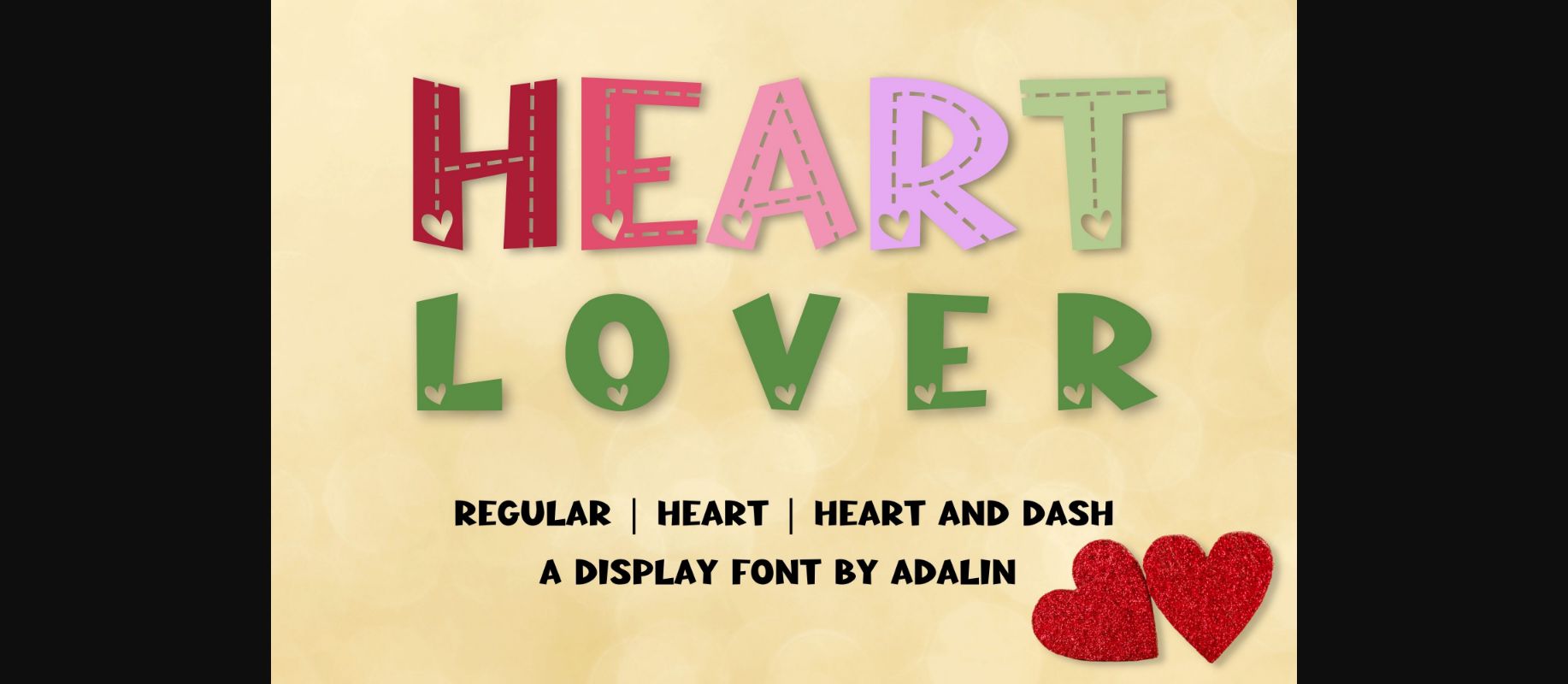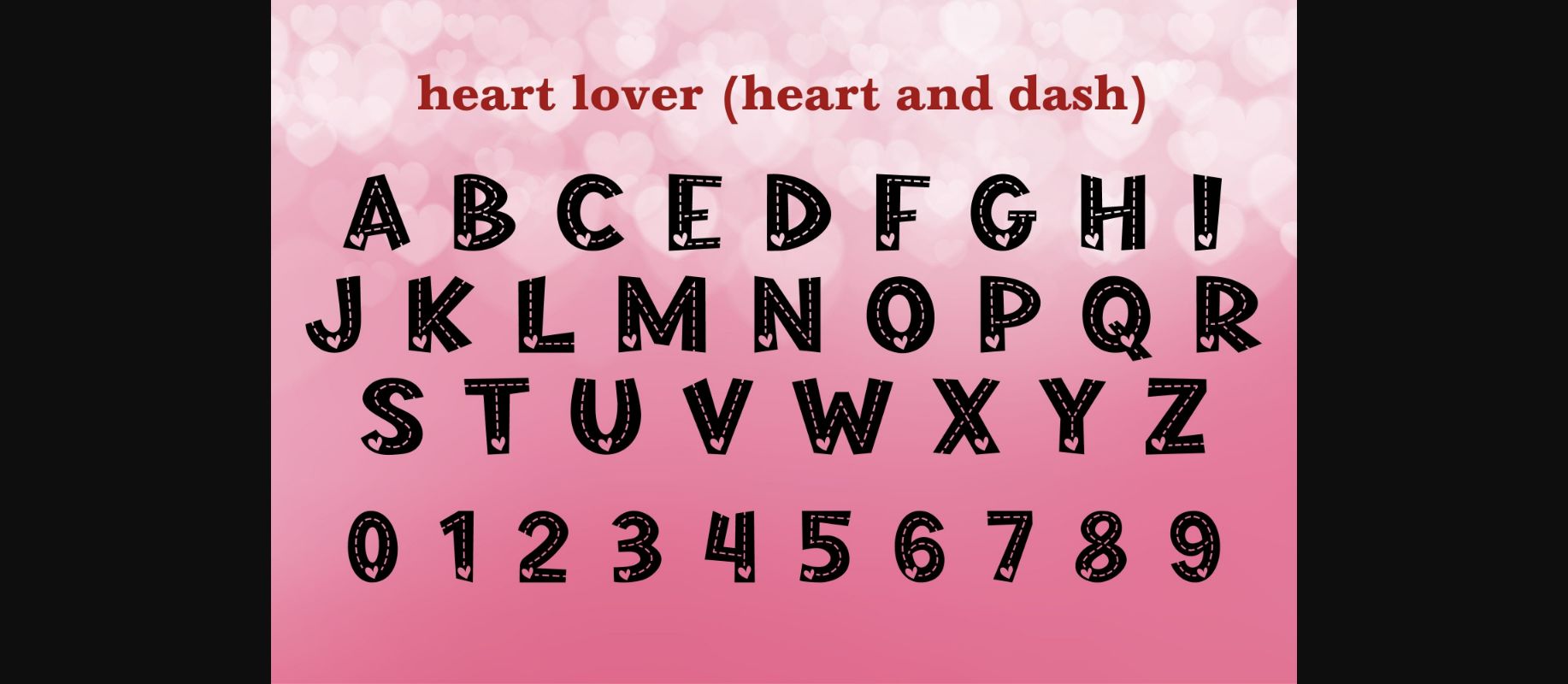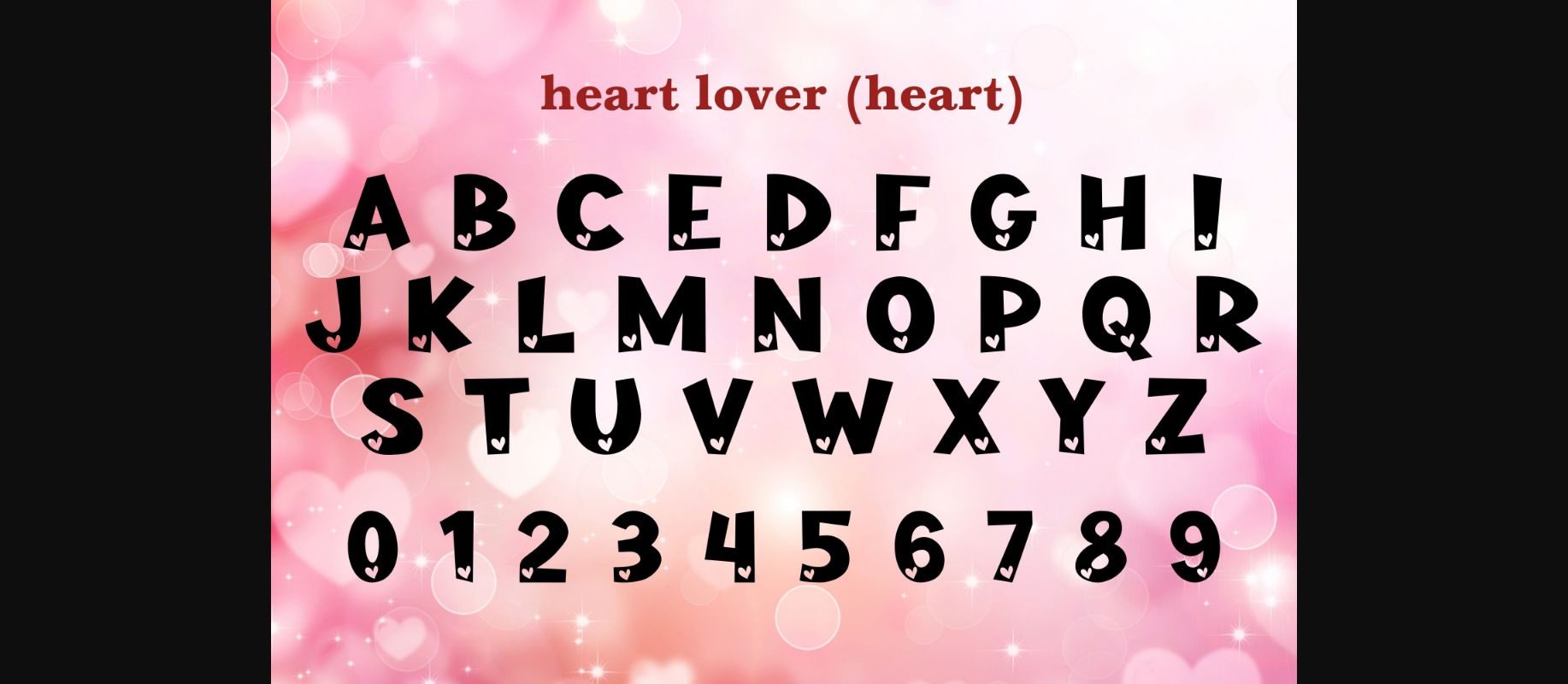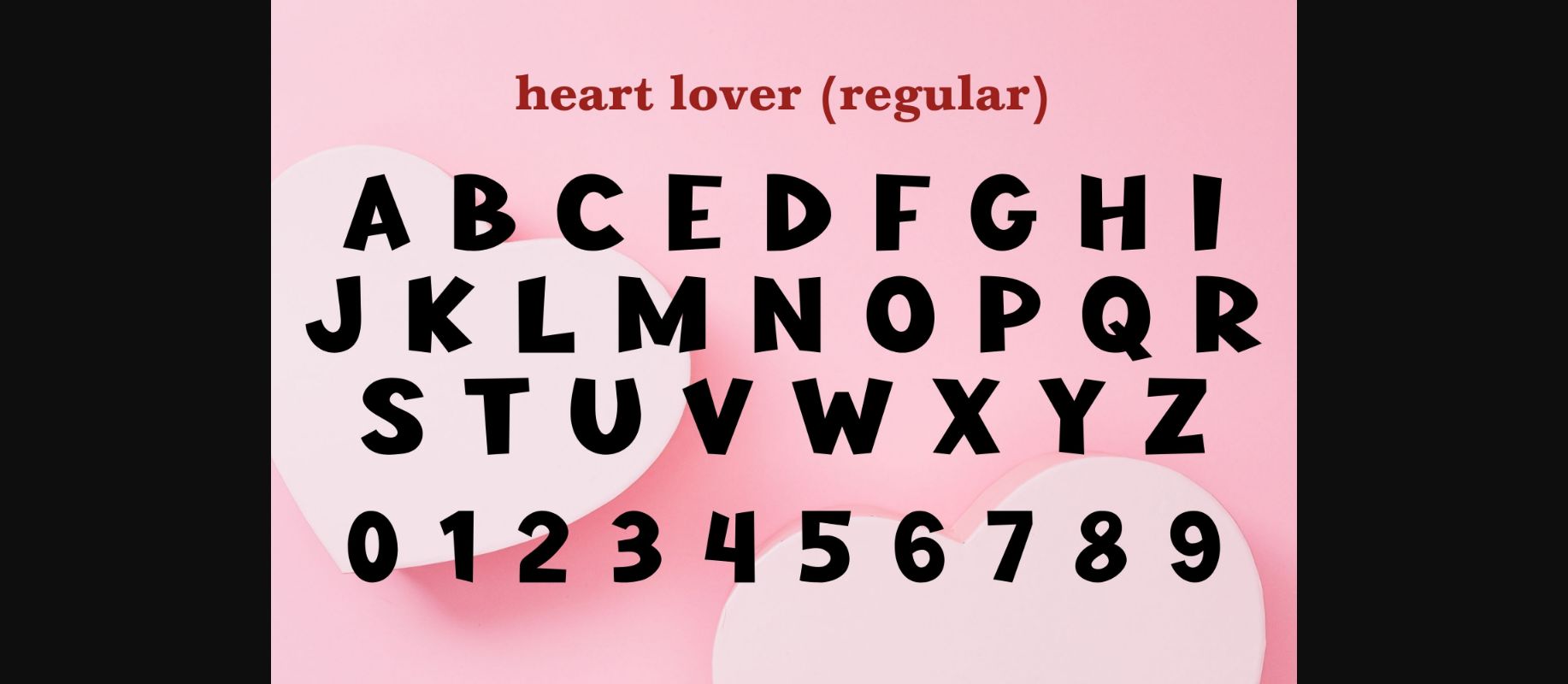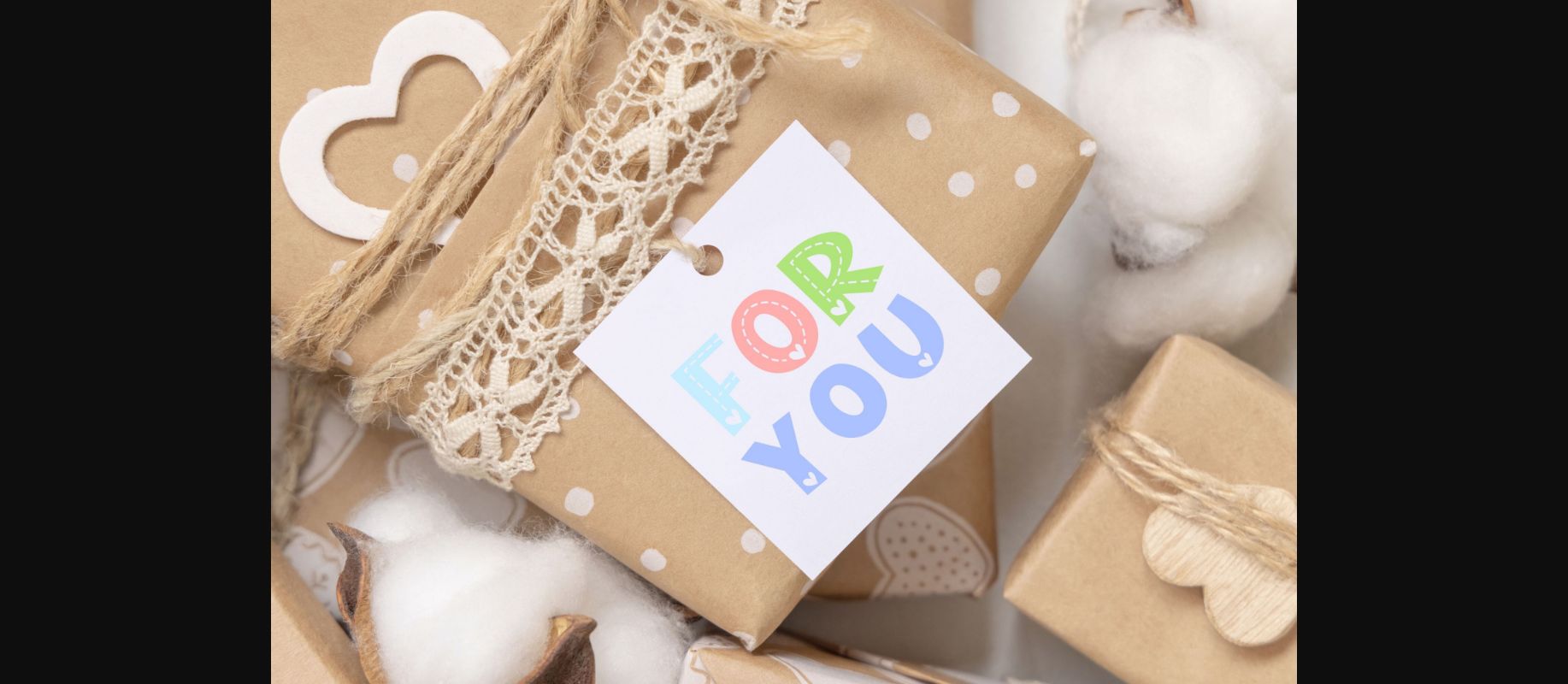
Heart Lover Font
About Heart Lover Font
Heart Lover is a cute decorative Font ideal for crafting, and perfect for designs that need a playful, cheery accent. Heart Lover is suitable for book covers, posters, packaging, merchandise, logotypes, and many more!